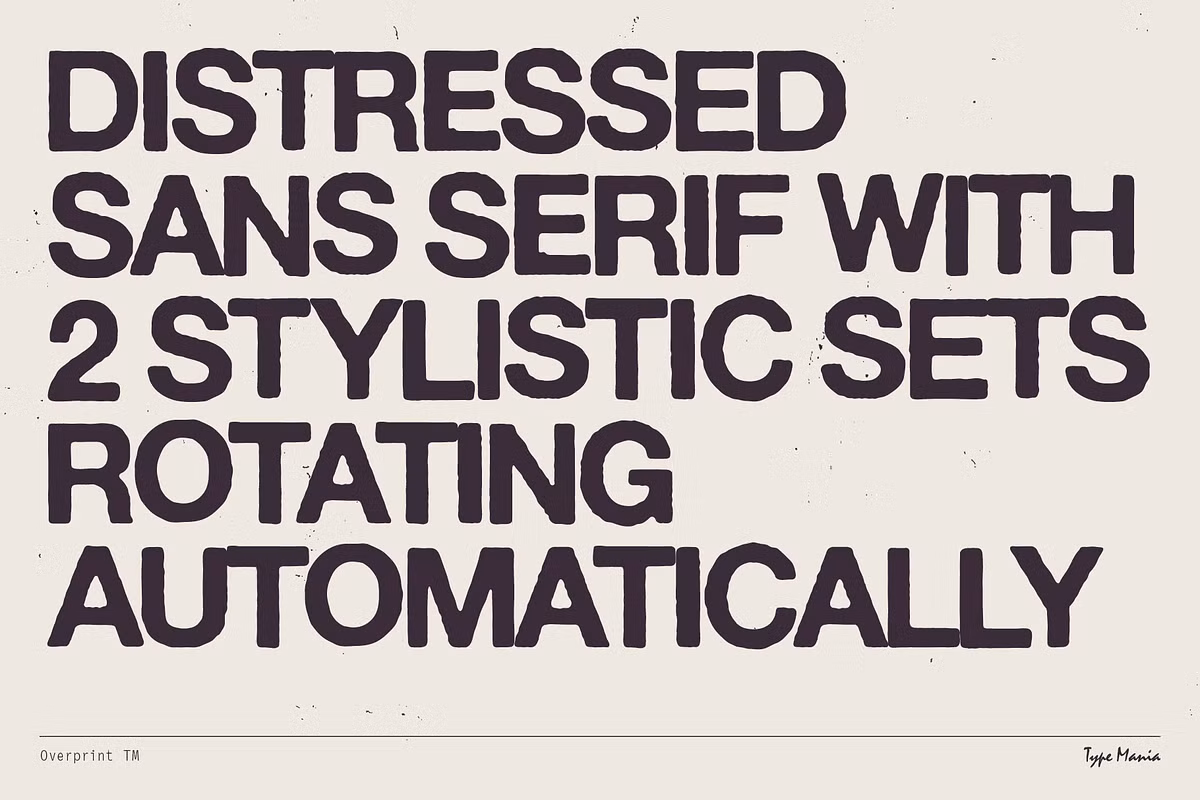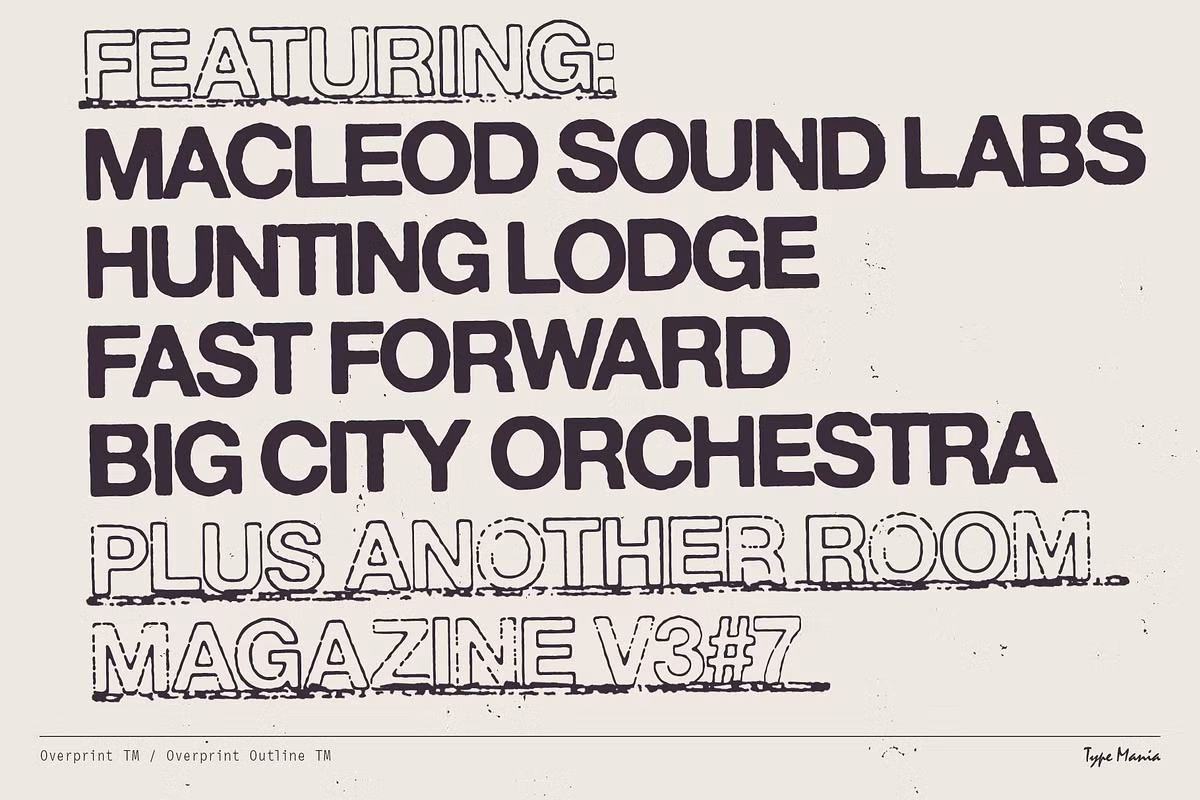
Overprint TM is a sans serif font that has edges and a copied look. The uneven edges and the xeroxed finish give Overprint TM a feel. Overprint TM adds a look, to any text. Draws the eye. In this article we look at the features the benefits and the ways you can use Overprint TM. Graphic designers and typographers will find Overprint TM useful.
Features of Overprint TM
Overprint TM is not any typeface. Overprint TM has features that improve the look and the flexibility. I have used Overprint TM. I notice the benefits. Here are some of the defining characteristics:
- Look: Overprint TM shows a look, with uneven edges. The distressed look feels raw and organic.
- Xeroxed Finish: I see that Xeroxed Finish adds a layer of texture to the design. Xeroxed Finish makes the design feel more tactile and more engaging. Xeroxed Finish feels real.
- Automatic Stylistic Sets: The font has two sets that rotate automatically when contextual alternates are turned on. When I type the automatic stylistic sets change a little each time. The automatic stylistic sets give each word a difference so no two letters look the same.
Benefits of Using Overprint TM
Adding Overprint TM to the design projects brings benefits. Overprint TM can raise the work you do:
- Unique Typography: Overprint TM has a style. Overprint TM helps your designs stand out in the market. Overprint TM makes your work easy to recognize.
- Creativity: I notice the imperfections, in the font push my expression. The imperfections let me play with typography in ways that feel fresh and new.
- Versatile Application: I use Overprint TM when I design the posters, the branding materials or the digital graphics. Overprint TM fits each case. Gives a look.
- Language Support: Overprint TM supports Basic Latin, Western European Euro Central Pan Latin scripts. From my experience Overprint TM works for many of the audiences.
How to Use Overprint TM
I have found that using Overprint TM is easy. Here is how you can make the most of the Overprint TM font:
- Activate Alternates: I always turn on the contextual alternates feature in my design software. The contextual alternates feature lets me use the sets.
- Experiment with Layout: Try Overprint TM. I try Overprint TM, in sizes and layouts to see how Overprint TM works with the design elements. Overprint TM works well. The style of Overprint TM can match images, colors and other fonts.
Who Should Use Overprint TM?
Overprint TM is ideal for a range of creative professionals:
- Graphic Designers: If you are looking to add a touch to your designs try the Overprint TM. The Overprint TM offers a view of typography.
- Brand Developers: A brand that wants the strong identity and the unique voice can use Overprint TM. Overprint TM creates branding materials that people remember.